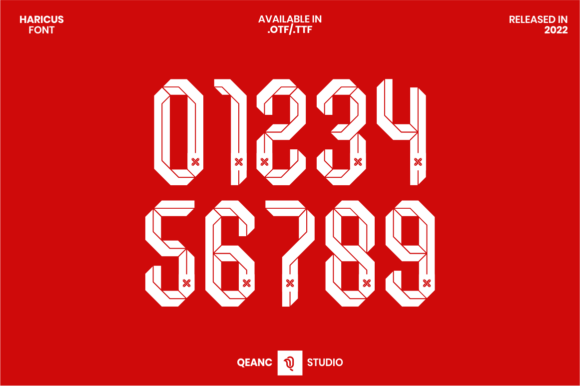
Prepare yourself to be mesmerized by Haricus Font, a display font family that exudes power, speed, and thrill! Inspired by the dynamic world of football, Haricus is your go-to font for capturing the energy and excitement of sports, adrenaline, and competitive spirit.
This remarkable font family is a masterpiece crafted by Qeanc Studio, renowned for their innovative and captivating designs. Their dedication to detail and passion for creating fonts that speak to your soul are evident in every curve and stroke of Haricus.
Whether you're a graphic designer seeking to make a bold statement, a content creator ready to ignite your projects, or simply a font enthusiast yearning for a game-changing addition to your collection, Haricus is your perfect match!